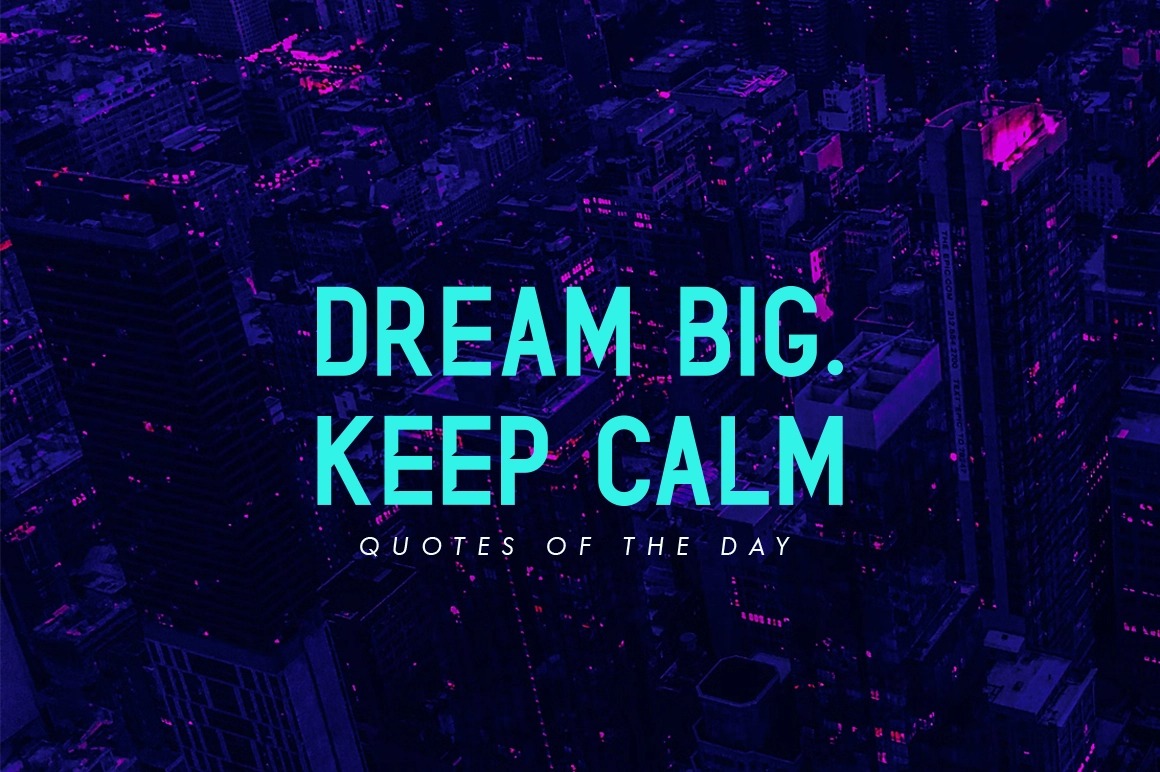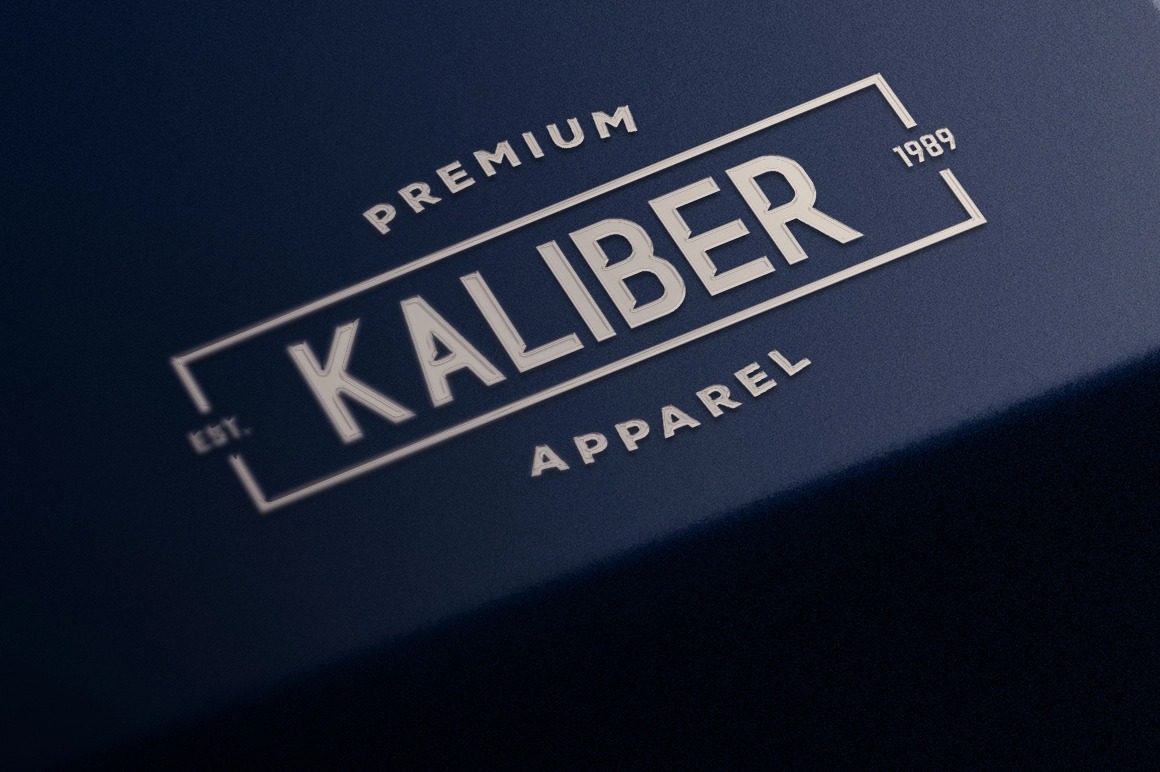
PHANTOM Display Font
This is a unique and breathtaking display typeface perfect for a wide variety of designs. You can use this font for any purpose, especially to make logotypes. This font is good for logo design, Social media, Movie Titles, Books Titles, a short text even a long text letter and good for your secondary text font with sans or serif.